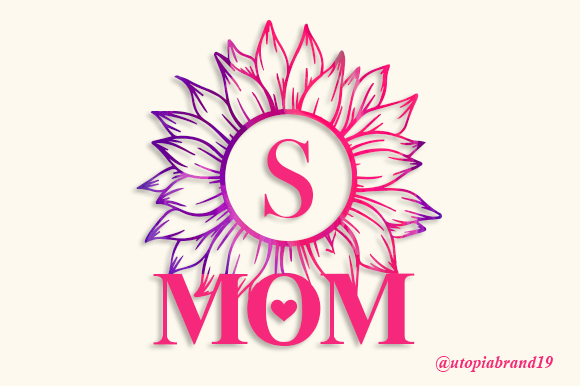
Embark on a journey of timeless beauty with Sunflower Mom Monogram Font, a decorative masterpiece crafted with elegance and charm. Step into a world of enchanting designs, where every letter dances with artistry and grace. Let your imagination flourish as you create captivating wedding invitations, personalized stationary art, eye-catching social media posts, and heartfelt greeting cards that speak volumes.
Immerse yourself in the intricate details of Sunflower Mom Monogram, a font that captivates with its delicate ornaments and authentic feel. Each stroke, each curve, each embellishment is a testament to the artistry that breathes life into this font. Experience the joy of crafting designs that resonate with warmth, elegance, and a touch of whimsy.
Picture this: a wedding invitation adorned with Sunflower Mom Monogram, its graceful letters intertwining with floral motifs, exuding an aura of romance and sophistication. Or envision personalized stationary art, where the beauty of this font transforms everyday notes into cherished keepsakes. Let your social media posts blossom with the charm of Sunflower Mom Monogram, capturing the attention of your audience with its captivating aesthetic. And when it comes to greeting cards, Sunflower Mom Monogram adds a heartfelt touch, conveying your warmest wishes in a truly unique and memorable way.
With Sunflower Mom Monogram, the possibilities are endless. Its versatility extends from traditional wedding invitations to modern social media graphics, from classic stationary art to heartfelt greeting cards. Unleash your creativity and watch as your designs bloom with elegance, captivating hearts and leaving a lasting impression.
Embrace the magic of Sunflower Mom Monogram today, and embark on a creative journey that will leave you inspired and enchanted. Let this font be your muse, guiding you towards designs that ignite emotions, spark joy, and create memories that will be cherished for a lifetime.